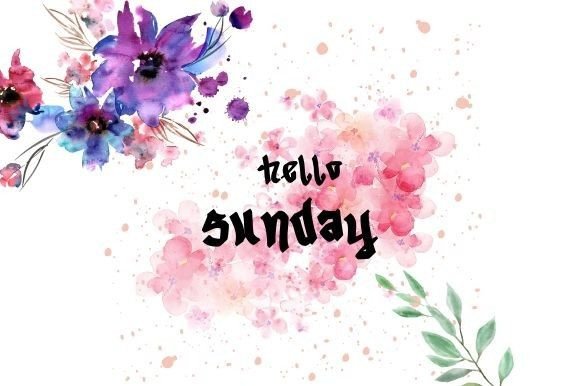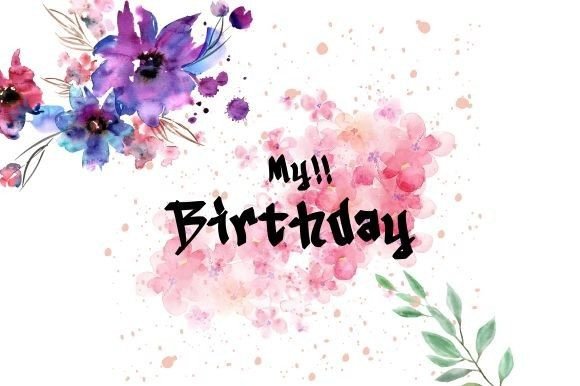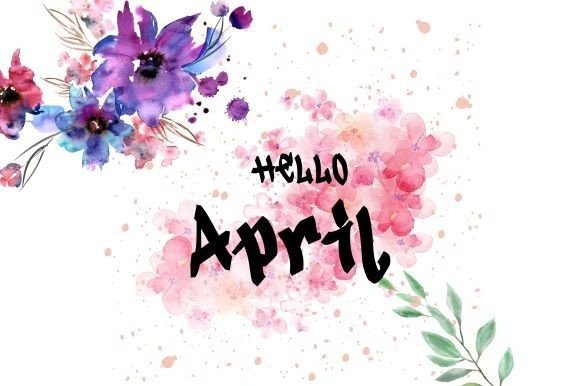
Introduction to Sn More Font
As a designer, you’ve probably experienced that moment when you’re working on a creative project, and everything just falls into place. The colors, the layout, the typography – it all comes together to create something truly special. But sometimes, finding the perfect font can be a challenge. That’s where Sn More Font comes in – a beautiful, high-quality handwritten font that’s sure to elevate your designs.
With its balanced and elegant style, Sn More Font is a versatile design resource that can be used in a variety of projects, from clothing and bags to mugs and greeting cards. Its transparent background makes it easy to use, and its free download makes it accessible to designers of all levels. Whether you’re working on a personal project or a client’s design, Sn More Font is a valuable addition to your toolkit.
Key Features of Sn More Font
- High-quality design resource with a unique, creative style perfect for various projects.
- Transparent background, allowing for seamless integration into any design.
- Designed to be a versatile and effective design element for any creative project.
Honest Review: Sn More Font
I recently had the chance to work with the Sn More Font, and I must say it’s been a game-changer for my creative projects. This font is a high-quality design resource that offers a lot of versatility.
What works well: ✨ The Sn More Font is incredibly easy to use, and its transparent background makes it perfect for overlaying on images. The font’s clean and modern design also makes it a great fit for a variety of creative projects, from logos to brochures.
Some of the key features I love about the Sn More Font include:
- High-quality design with a modern aesthetic
- Transparent background for easy overlaying
- Perfect for logos, brochures, and other creative projects
However, I do have a few limitations to note: ⚠️ The font only comes in a limited number of weights, which can make it difficult to achieve the perfect look in some cases. Additionally, the font may not be suitable for very large or complex text.
Overall, I’m really impressed with the Sn More Font. It’s a great addition to any designer’s toolkit, and I would highly recommend it for any creative project.
Common Use Cases and Tips
Sn More Font is ideal for creating visually appealing designs, such as:
1. Social media graphics
2. Business logos
3. Infographics